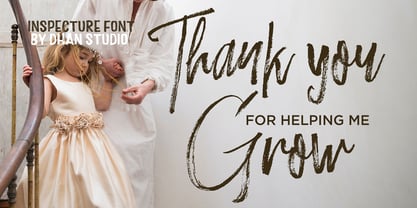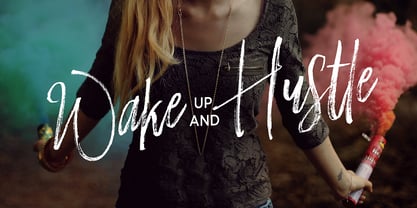
Inspecture Brush Font
by Dhan Studio
The Inspecture Brush Font Font Family was designed by Mauli Zari and published by Dhan Studio. Inspecture Brush Font contains 2 styles and family package options.
Inspecture is a brush textured font with Perfect, also equipped with additional swashes, this font will make perfection for your design and will make your design more bold and elegant.
Perfect for branding projects, logos, product packaging, posters, news, blogs, and the like